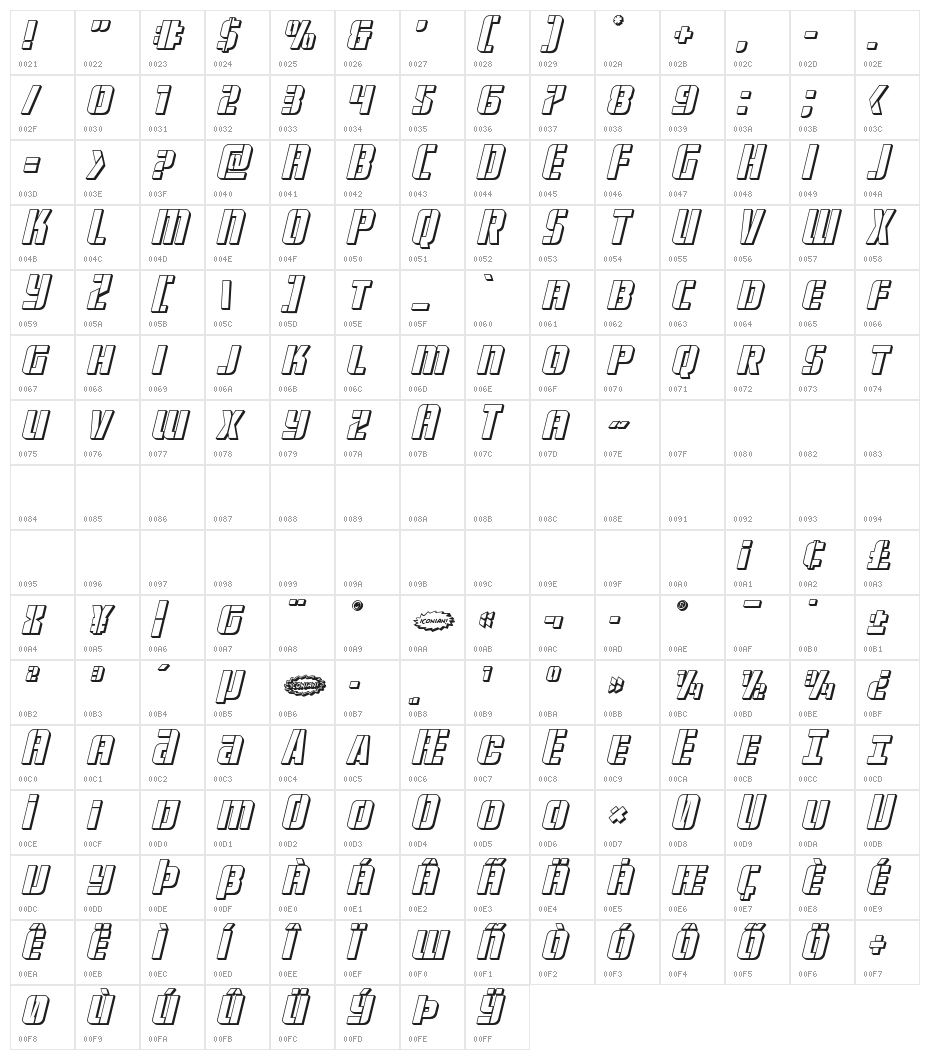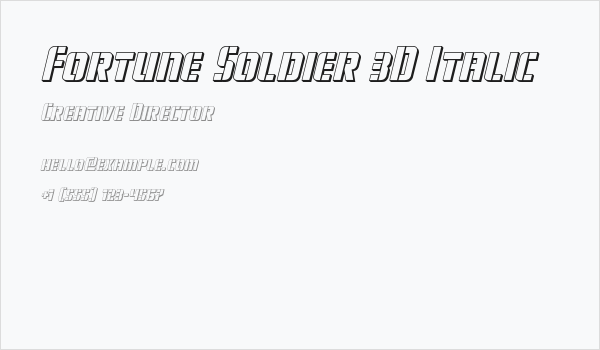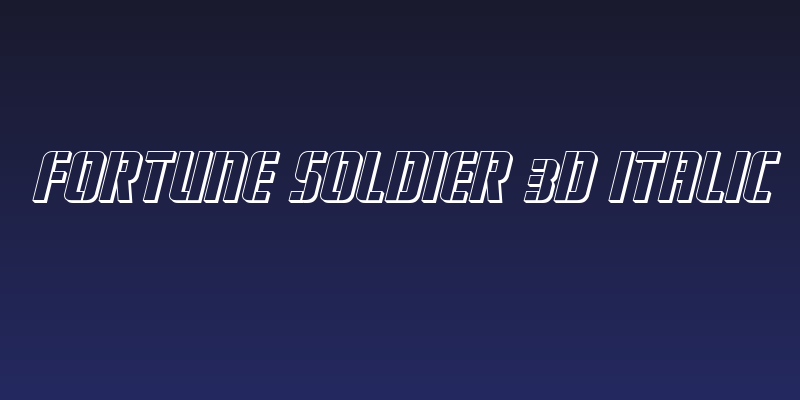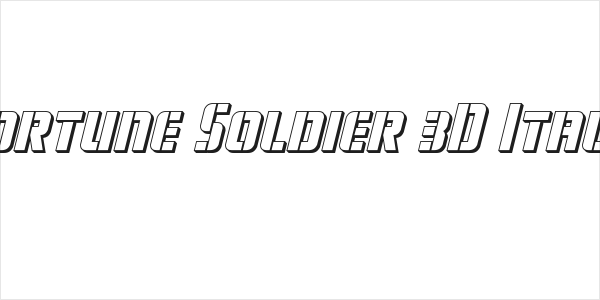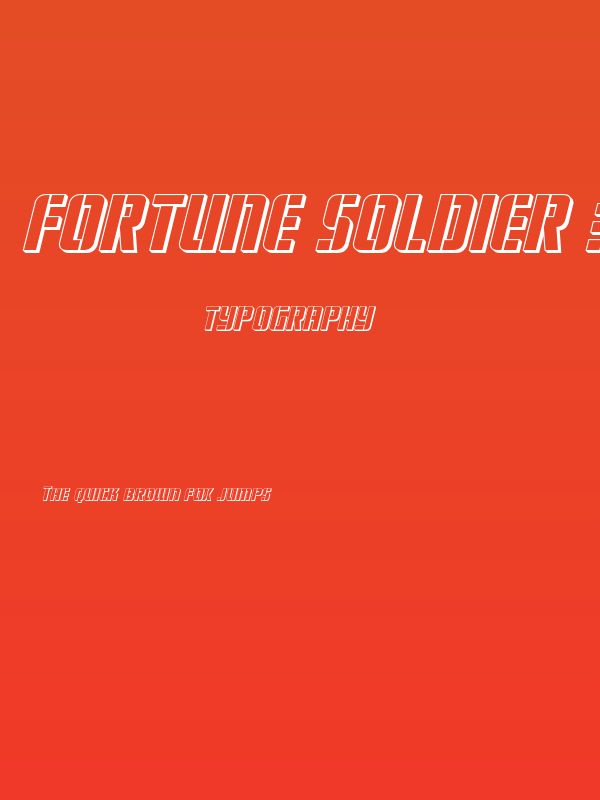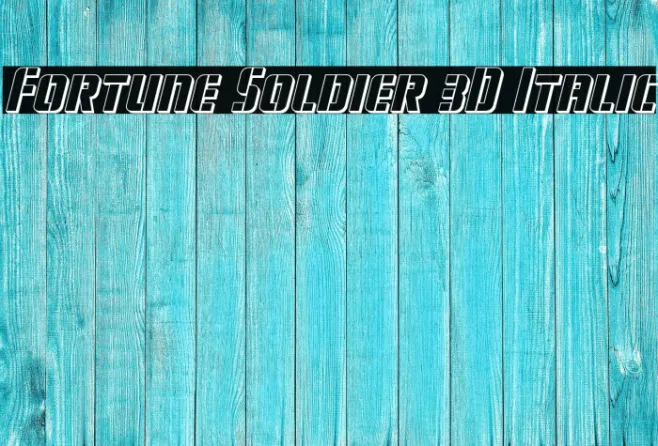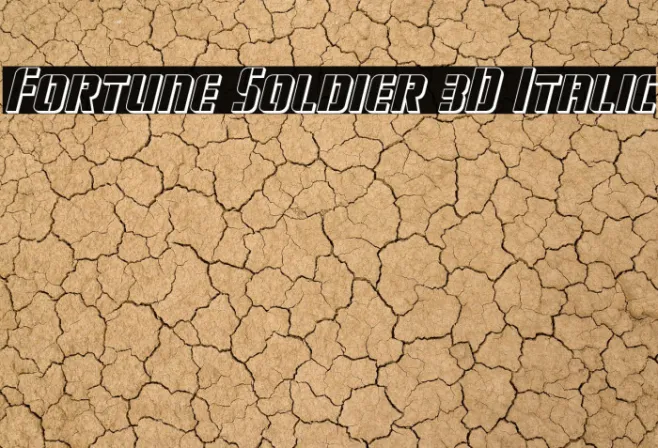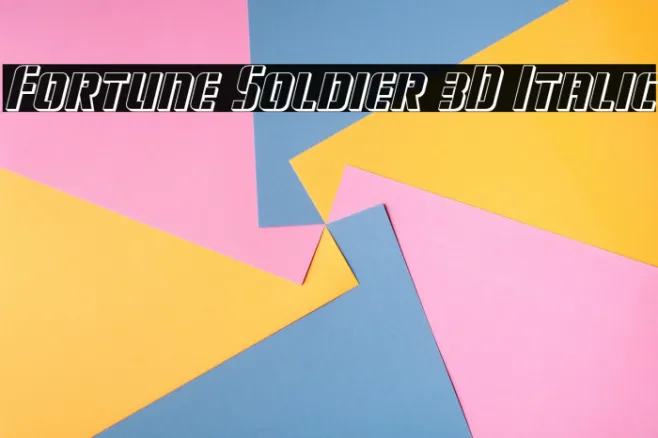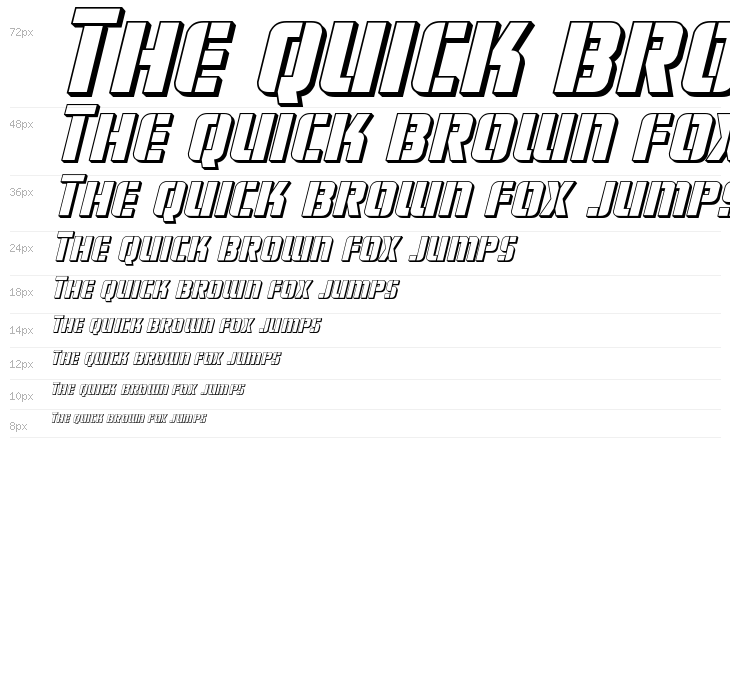
Fortune Soldier 3D Italic Font
Fortune Soldier 3D Italic Description
This font features a bold, three-dimensional design with an italic slant, giving it a dynamic and futuristic appearance. The characters are outlined, creating a sense of depth and movement. The uppercase and lowercase letters maintain a consistent style, with sharp angles and clean lines. The numbers and special characters are designed to match the boldness and style of the alphabet, ensuring a cohesive look across all text. This font is particularly striking due to its strong geometric shapes and the illusion of depth created by the 3D effect.
| Overall Style | Futuristic, Dynamic |
| Proposed Projects | Ideal for video game titles, sci-fi posters, sports branding, and any project needing a bold, futuristic look. |